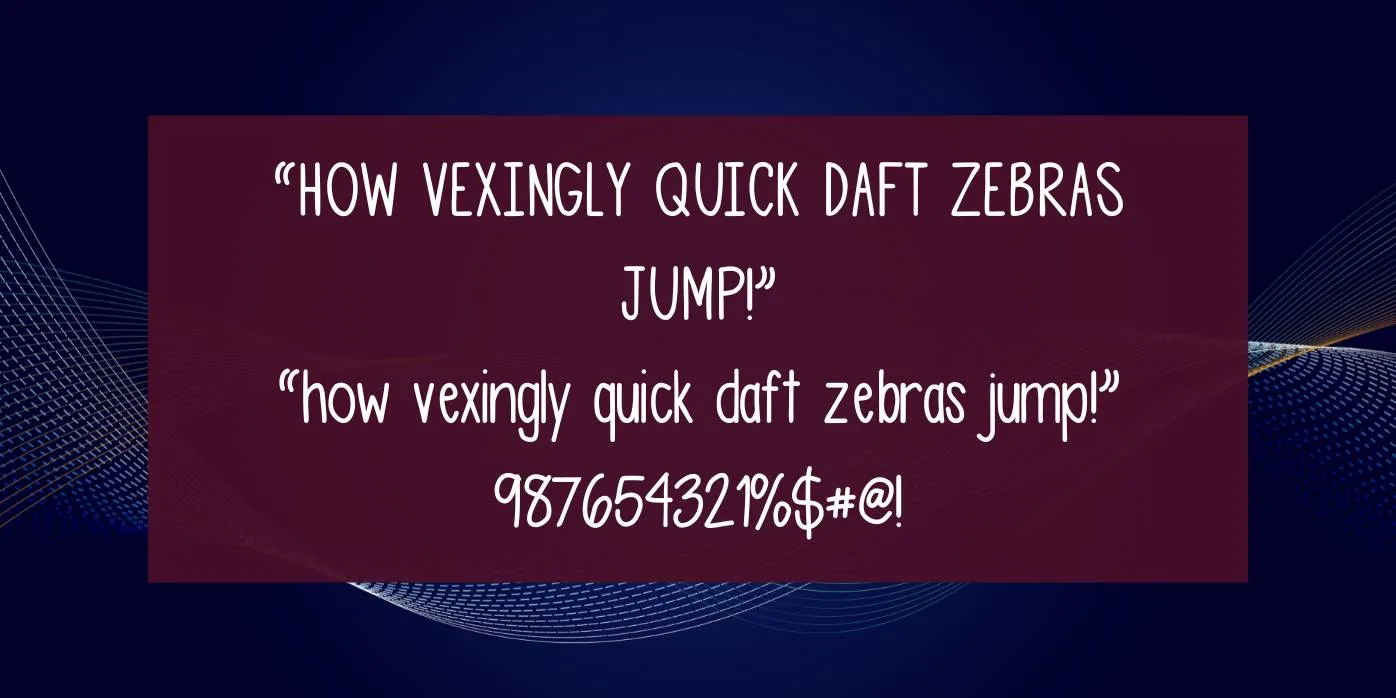
Asdfghjkl Font
The Asdfghjkl Font is a very nice handwritten font and was designed by Kylie Morris. It supports languages Latin and symbols. Unicode blocks supported by this font are Basic Latin, Latin-1 Supplement, General Punctuations, and much more. It contains 230 characters 199 glyphs and 1000 units per Em.
The weight of the font is Semi-Light and its width is condensed. MAC style follows by this font is bold and the pattern nature is regular and its pitch is not monospaced. You can also pair it with other fonts like ink font to give a more attractive look to your projects. Usage You can make so many projects using this amazing font.
It has characters, symbols, numbers, small letters, capital letters, and punctuation. It is a handwritten font and can be used to make different social media posts and business cards. You can also make wedding invitation cards and other event invitation cards by using them. For making or editing designs in Adobe Photoshop and Canva you can also use this stunning typeface.
Who owns Asdfghjkl Font? It is a very nice handwritten font and it was designed by a famous designer Kylie Morris. You can make so many different projects by using it. Can I use Asdfghjkl Font on Adobe Photoshop?